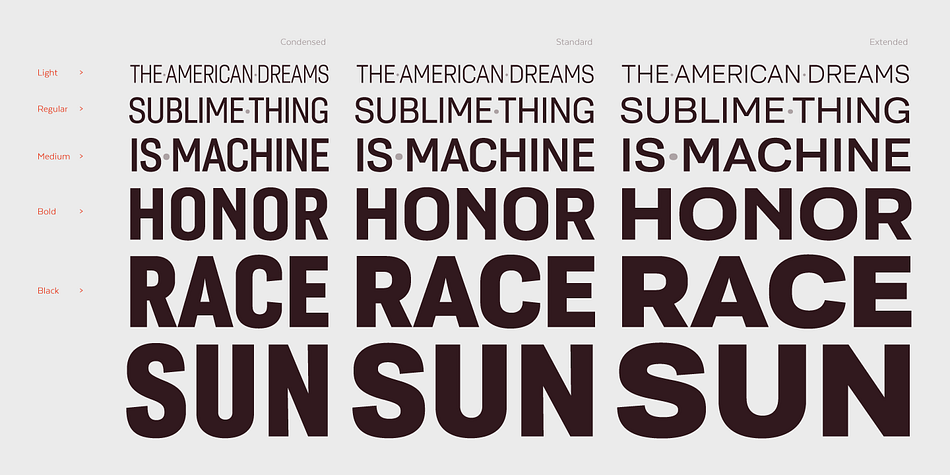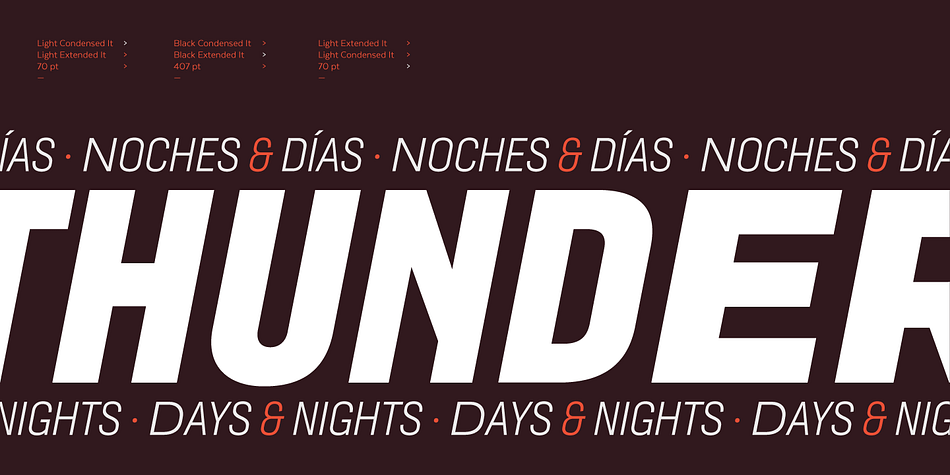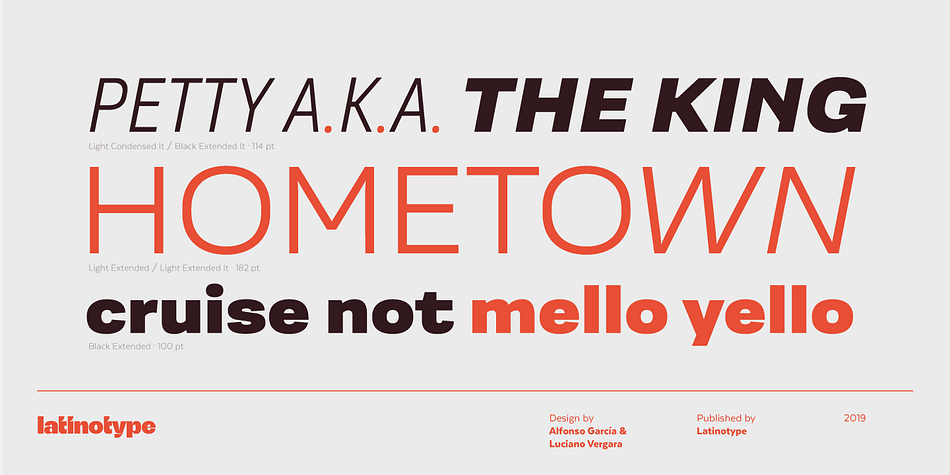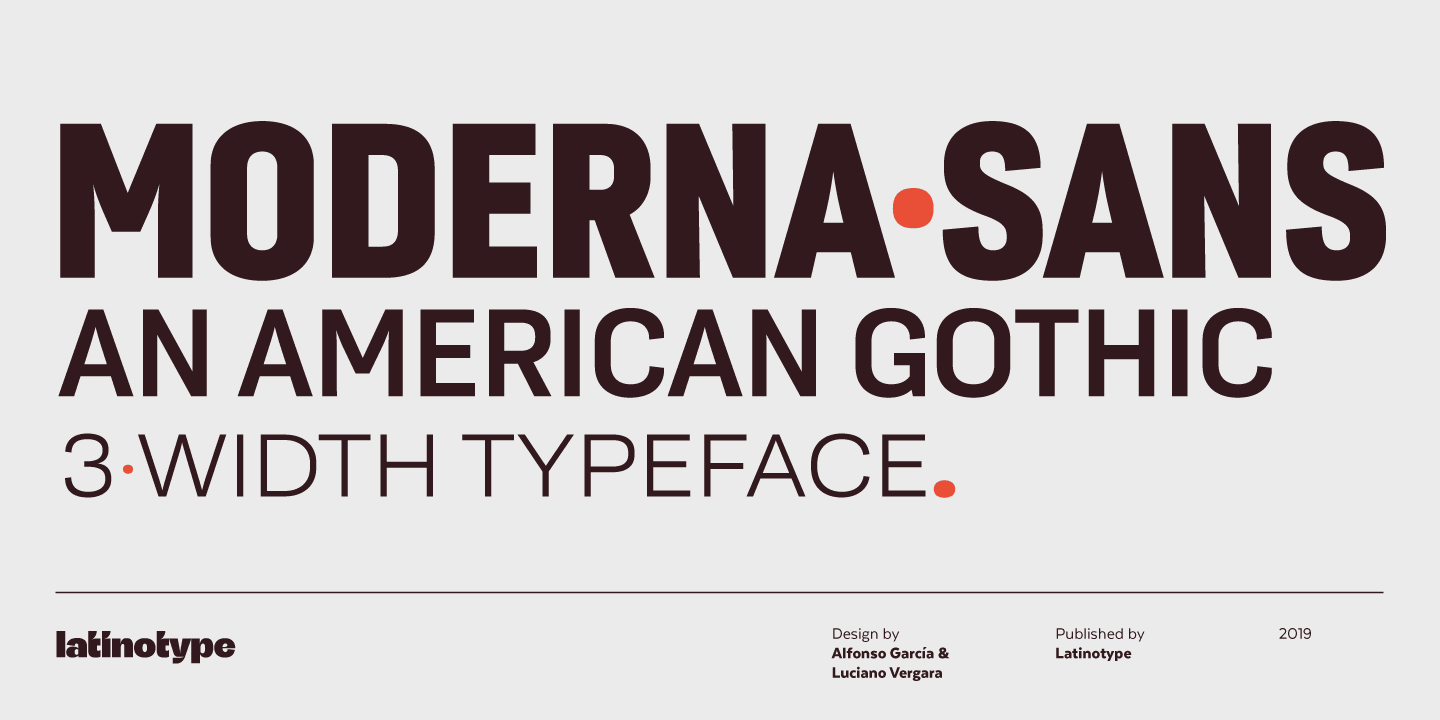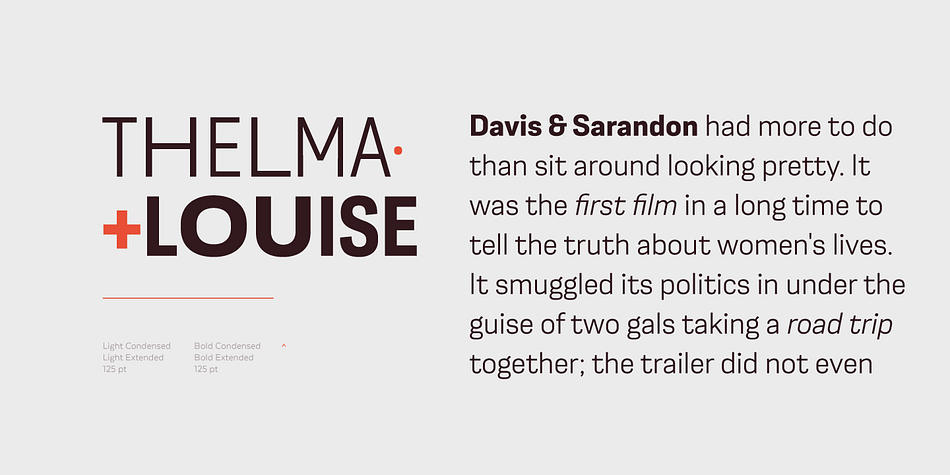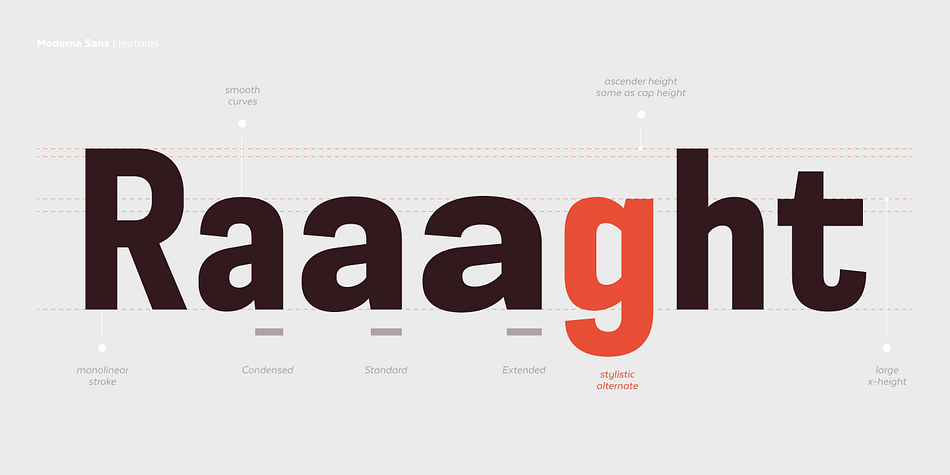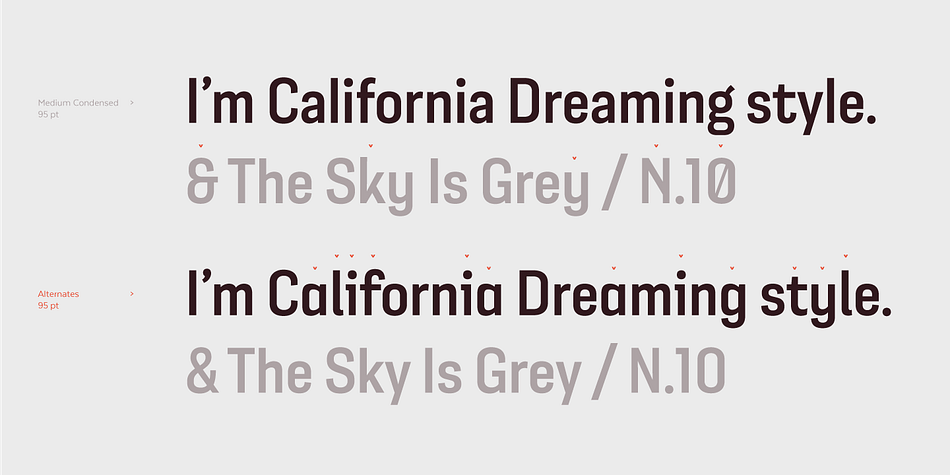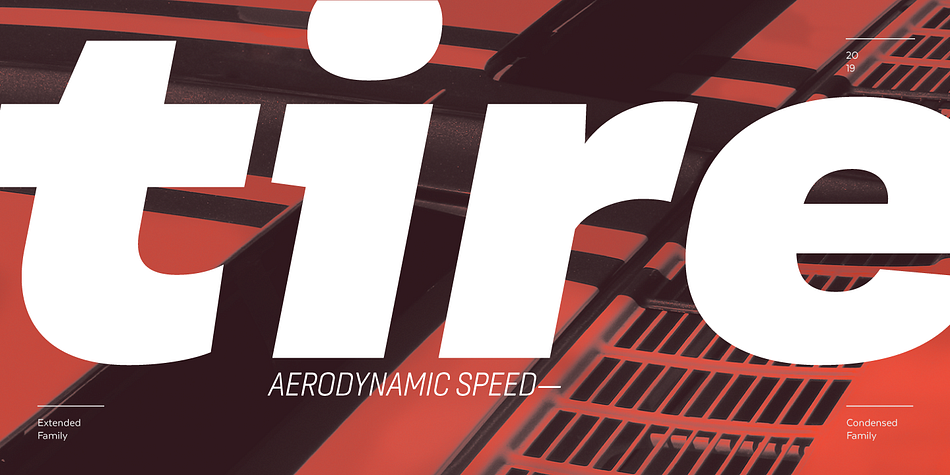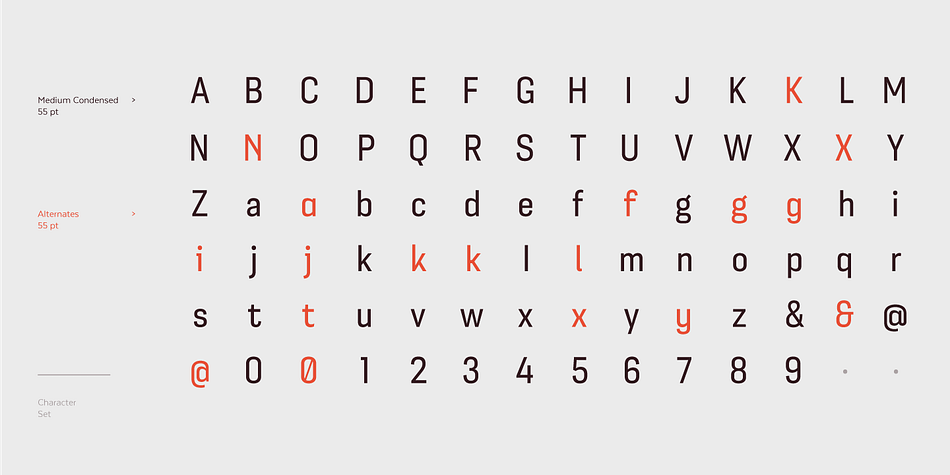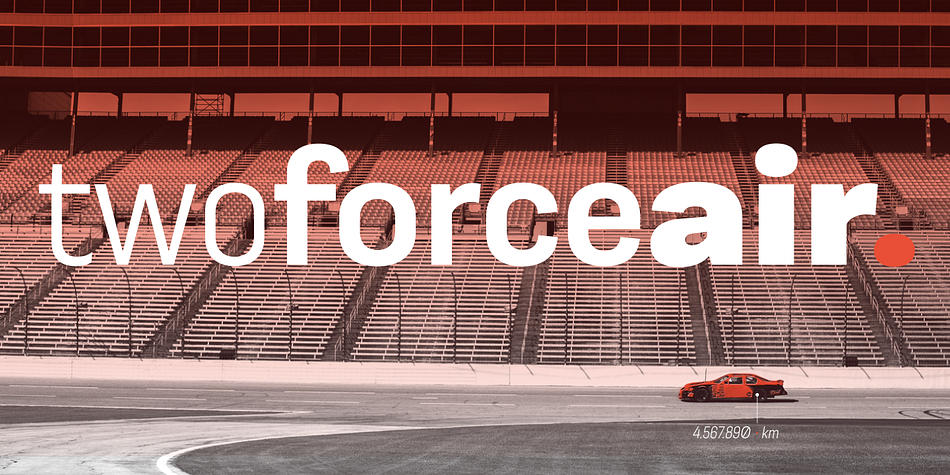
Designed by Luciano Vergara and Alfonso García, Moderna Sans is a sans serif font family. This typeface has thirty styles and was published by Latinotype.
Moderna Sans, a modern sans-serif inspired by the American culture, is a clean and contemporary interpretation of American Gothic typefaces like “Alternate Gothic”.
Moderna Sans comes in 5 weights, with matching italics, and 3 widths—condensed, standard and extended. The font’s character set supports over 200 Latin-based languages.
Moderna Sans is an excellent choice for branding and corporate design and a versatile 3-width workhorse suitable for newspaper or magazine headlines and subheadings.
Moderna Sans was designed by Luciano Vergara in collaboration with Alfonso García.